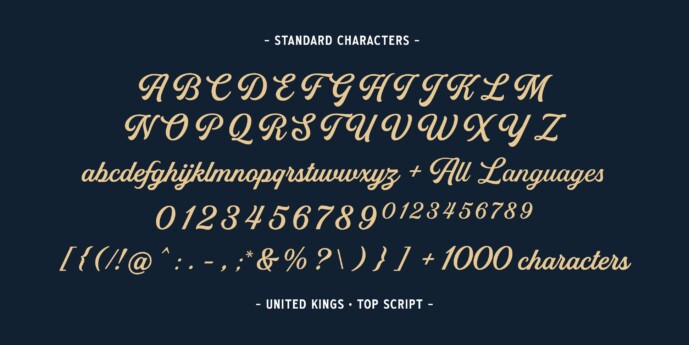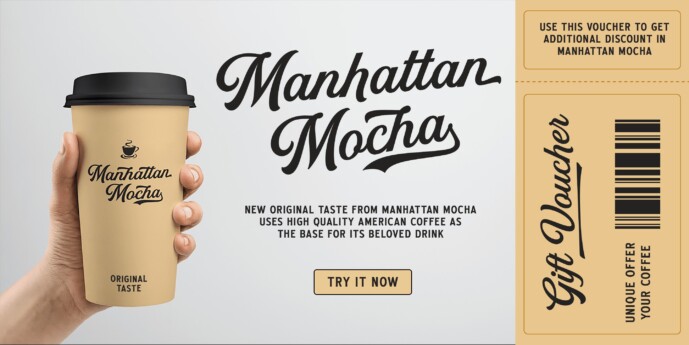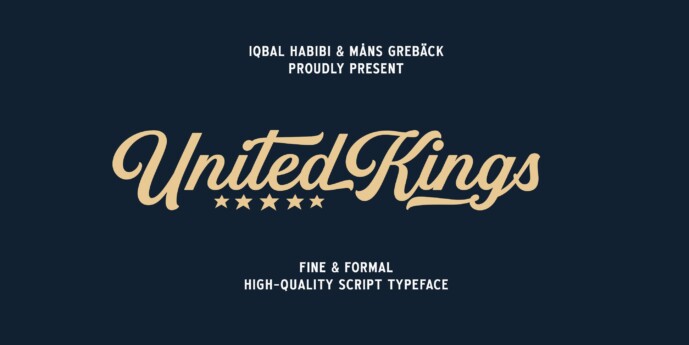
United Kings is a masterfully crafted formal script font that exudes an air of perfection and fine art. Designed for high-end projects and showcasing genuine, authentic craftsmanship, this font brings an unparalleled sense of balance and beauty to your creative work.
The exquisite, well-crafted letterforms of United Kings make it an exceptional choice for logotypes, professional branding, and artisanal projects that require a touch of finesse and sophistication.
Use ¤ to make tail swashes, or multiple for longer swashes.
Example: Kingdom¤¤¤
Use underscores _ anywhere in a word to make an underline.
Example: Belo__ved